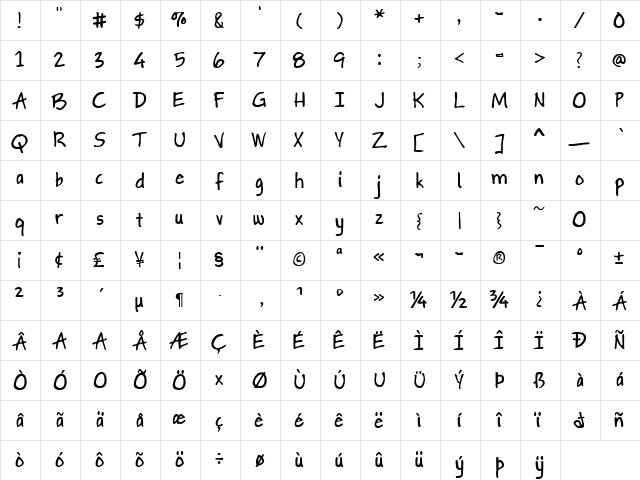
Gapstown Small AH Regular Free Font
Gapstown Small AH Regular
Foundry: Fontgrube AH
Designer: Andreas H￿d
Design Context for Gapstown Small AH
Gapstown Small AH is a composed and adaptable typeface that performs quietly and consistently across a wide range of design contexts.
Who designed the Gapstown Small AH Regular font?